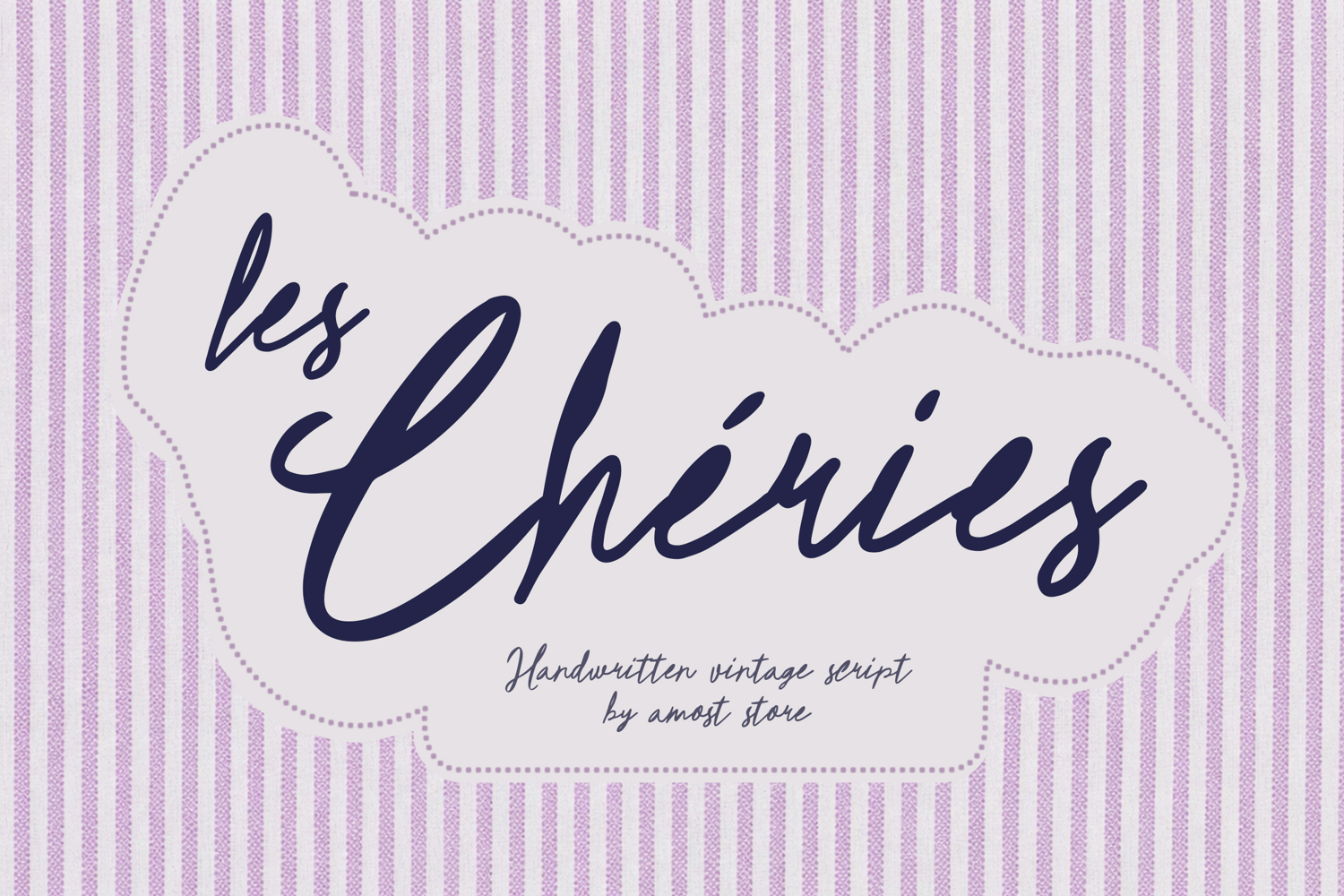
Les Cheries is a graceful handwritten vintage script font inspired by romantic French boutiques, nostalgic stationery, and timeless Parisian elegance. Featuring flowing letterforms, smooth connecting strokes, and naturally expressive curves, it captures the beauty of authentic handwriting while maintaining excellent readability. Its refined yet effortless style makes it perfect for logos, branding, wedding invitations, boutique packaging, café menus, cosmetic labels, greeting cards, and editorial designs that seek a warm and sophisticated touch.